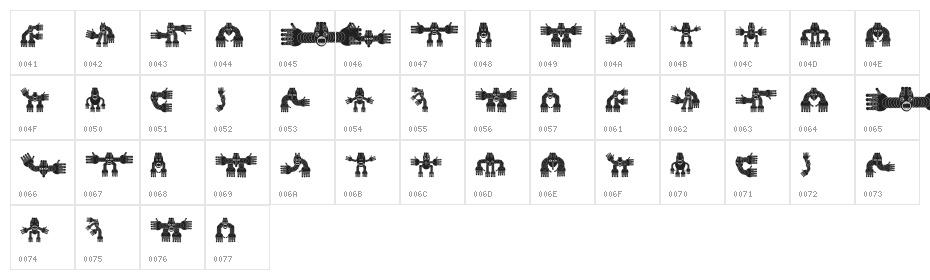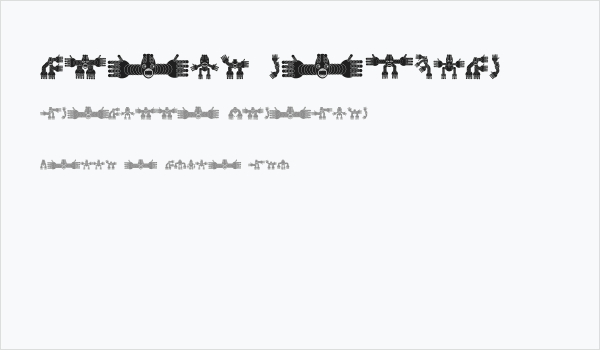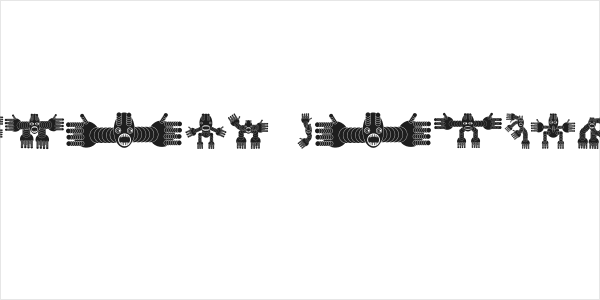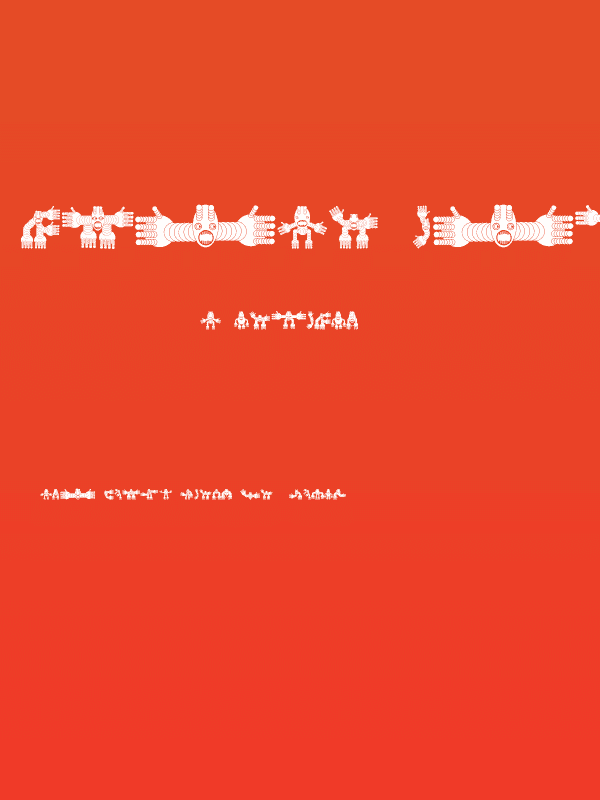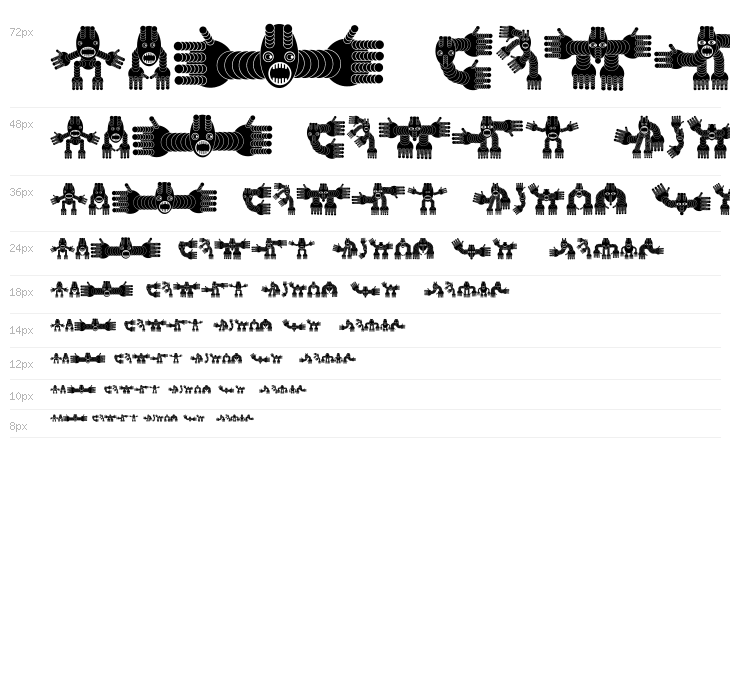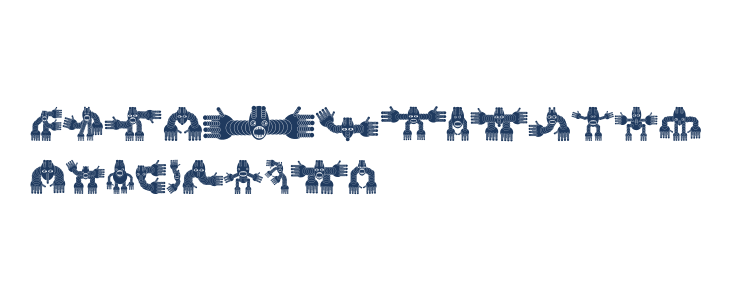
Aveto Regular Font
Aveto Regular Description
This font features a highly decorative and unique design, where each character is represented by a stylized figure resembling a robot or mechanical creature. The characters are composed of intricate patterns and shapes, giving them a bold and artistic appearance. The font is not designed for readability in traditional text settings but rather as a creative and eye-catching display typeface. Its playful and imaginative style makes it suitable for projects that require a distinctive and unconventional look.
| Use Case | Logos, Posters, Artistic Displays |
| Proposed Projects | Ideal for creative projects such as posters, album covers, video game graphics, or any design that benefits from a bold and artistic touch. |